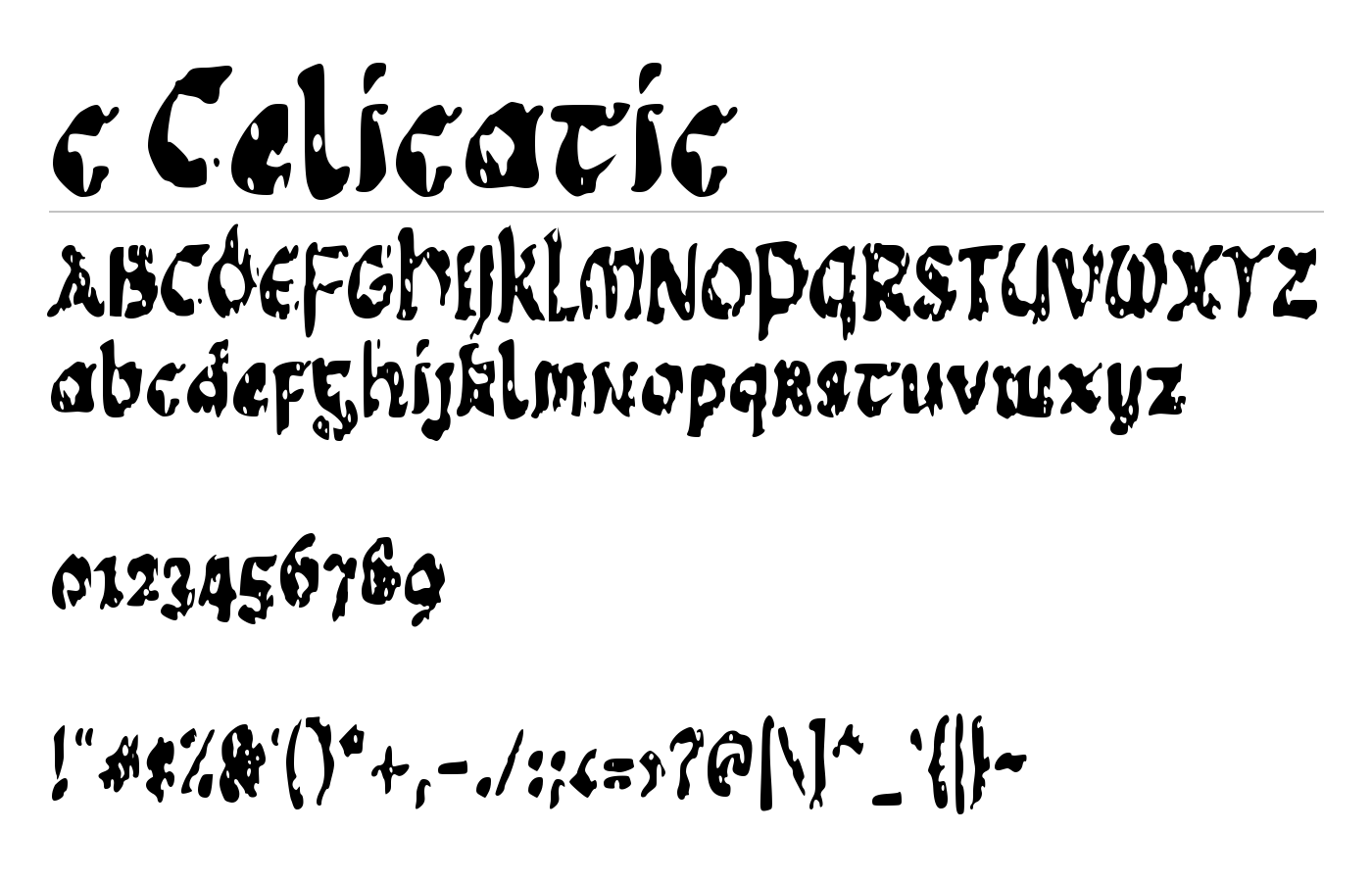
Celicatic is a decorative, distressed display font with a bold, irregular style that evokes a spooky, eerie mood. Its uneven, inkblot-like letterforms feature high contrast and quirky shapes, making it perfect for Halloween themes, horror posters, or any creative design seeking a mysterious and unconventional look. This font works best in headlines or titles where its unique personality can stand out without sacrificing readability.
c Celicatic Font
About c Celicatic Font